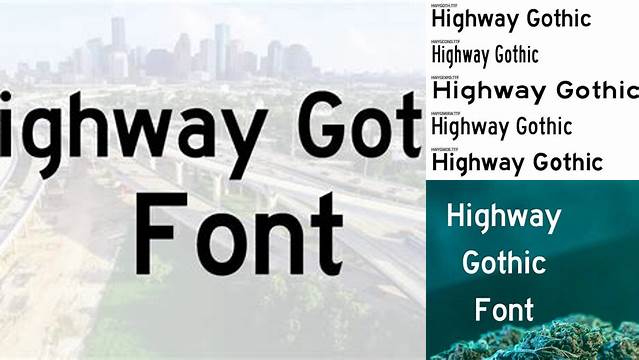
Fonts Like Highway Gothic: Discover Your Perfect Match
Hey everyone! Today, we're diving into the awesome world of fonts, specifically those that share similarities with the iconic Highway Gothic. For those unfamiliar, Highway Gothic is that clean, bold, and instantly recognizable typeface you see on road signs across the US and beyond. It's all about clarity, readability, and a touch of, well, highway coolness. Finding fonts similar to Highway Gothic can open up a world of design possibilities, from crafting sleek logos to creating eye-catching headlines. So, let's cruise down the road of typography and explore some fantastic alternatives. Get ready to discover fonts that capture that same spirit of legibility and impact, perfect for your next project!
H2: Exploring the Core Characteristics of Highway Gothic
Before we zoom in on similar fonts, let's nail down what makes Highway Gothic so special. It's not just about the look; it's about the function. This font was engineered for clarity, especially under less-than-ideal conditions like long distances and low light. Think about it: drivers need to instantly understand information, and that's where Highway Gothic shines. Its key features include:
- Bold and Condensed: The font's weight and form allow it to stand out from the background. This makes it easier to spot from afar. Its condensed nature is very good for saving space, maximizing the amount of information.
- Open Counters: The open spaces within letters (like in 'a', 'e', 'o') are generous, which prevents the letters from blurring together and makes the text easier to read. This is crucial for fast interpretation.
- Consistent Stroke Width: The consistent thickness of the lines that make up the letters contributes to its clarity. It minimizes visual distractions and makes reading faster.
- Geometric Design: The font's geometry provides a modern and streamlined appearance. This helps it remain timeless and versatile. You see this in the rounded corners.
Understanding these elements is essential because any font that echoes Highway Gothic will need to capture them. It needs to be readable at a glance. The next time you see a highway sign, take a moment to appreciate the thoughtful design that keeps us safe on the road.
H3: The Importance of Legibility in Font Selection
Let’s talk about legibility. In the design world, legibility reigns supreme. What’s the point of a stunning font if nobody can read it? Highway Gothic, designed by the U.S. Federal Highway Administration, perfectly exemplifies this. Its primary goal is instant understanding, which is why it has been so widely adopted. Consider the design scenario: a website, a poster, or even your own brand's logo, which is just a tiny part of the larger design.
Legibility isn’t just about individual letters; it’s also about how words and paragraphs flow together. Factors like letter spacing, line height, and contrast all affect readability. A font that is very stylish can look very bad. In the choice of a font, consider the target audience. A complex or highly stylized font might be fine for a short headline, but it would be a nightmare for blocks of body text. In the modern world, there is so much media that grabs our attention.
So, when you're searching for fonts similar to Highway Gothic, keep legibility at the forefront. Prioritize fonts that are clear, clean, and designed for effortless reading. If you are making a design for the elderly, you may want to avoid thin fonts, and ensure that the design is as clear as possible.
H2: Top Fonts That Mimic Highway Gothic's Boldness
Alright, let's get to the good stuff! These fonts channel the bold and commanding presence of Highway Gothic. They are perfect for grabbing attention and making a statement.
H3: Introducing Franklin Gothic and Its Variations
Let's get right into it with Franklin Gothic, an absolute classic. This font family has a similar bold weight and a strong presence, but there are some variations. While not a direct clone, it shares Highway Gothic's geometric forms and readability. The key difference is that it's a bit less condensed, which can give it a slightly warmer feel.
Franklin Gothic is incredibly versatile. It's been widely used in headlines, posters, and even in body text. Its different weights let you choose from subtle to screaming. It's often used in corporate branding. It can evoke a sense of strength and reliability. It also provides a broader stylistic range, which can fit any design style.
Franklin Gothic is an excellent starting point if you're looking for something similar to Highway Gothic. You can easily explore its variations to see how it can best fit your style. It is a very safe choice, and most people will accept this choice.
H3: The Strength of Impact and Its Highway-esque Vibes
Impact is another font that carries that same bold, attention-grabbing vibe. It's perhaps even bolder than Highway Gothic and is a great choice if you really want to make a statement. With its thick strokes and compact design, Impact demands to be noticed. It's perfect for headlines, posters, and any design where you want text to be front and center.
H3: Final Thoughts on Finding Your Highway Gothic Match
So, that’s the lowdown on fonts like Highway Gothic! Whether you’re crafting a website, designing a poster, or just curious, hopefully, this guide has sparked some ideas and given you a starting point. Remember, the best font is one that matches the style you need, but is also easy to read and works well in your overall design. Go out there and find the perfect match for your project!